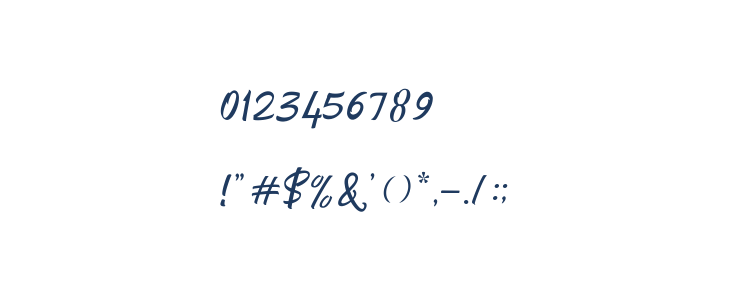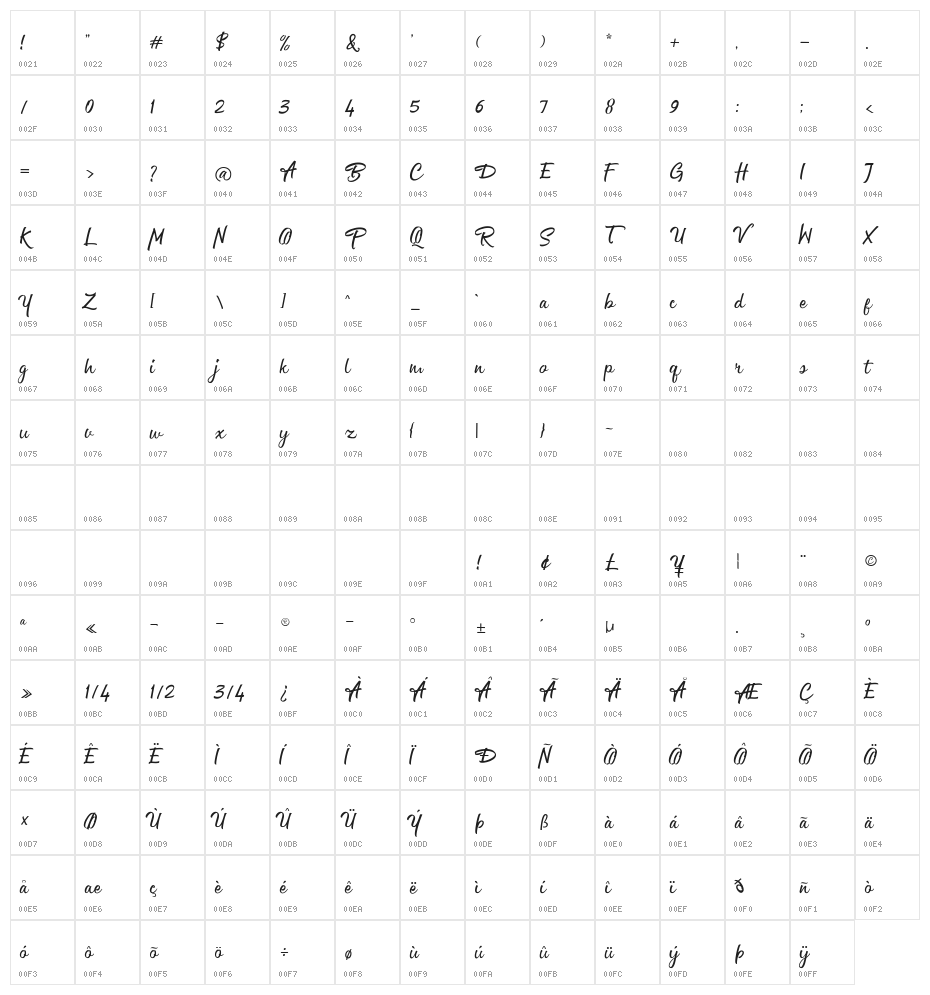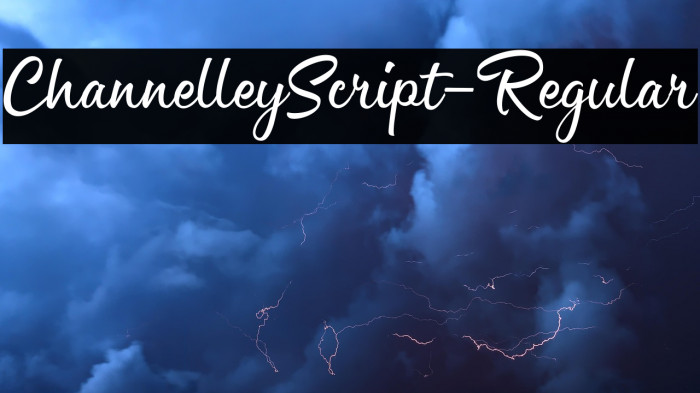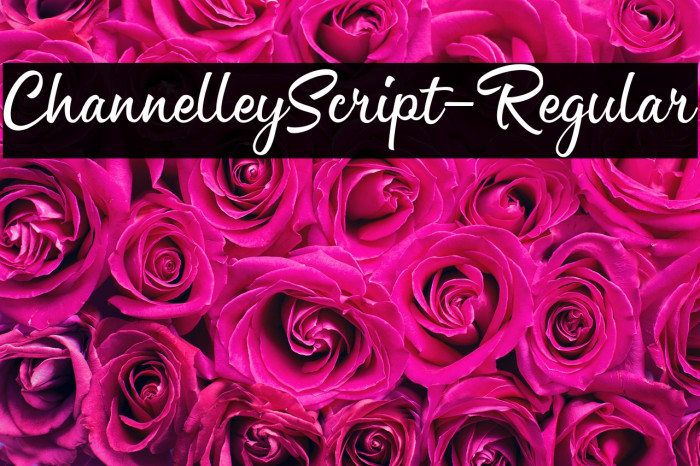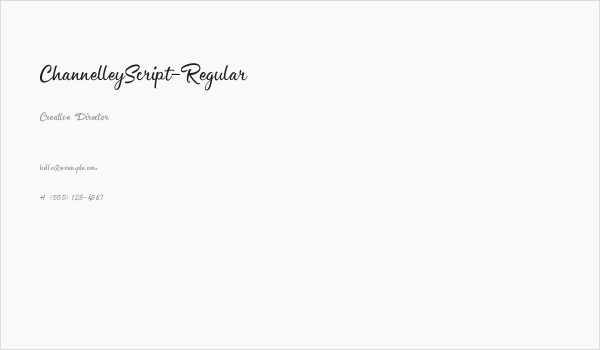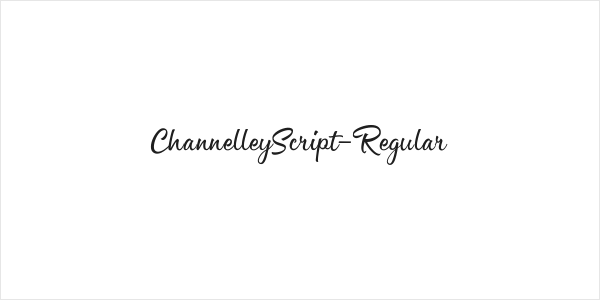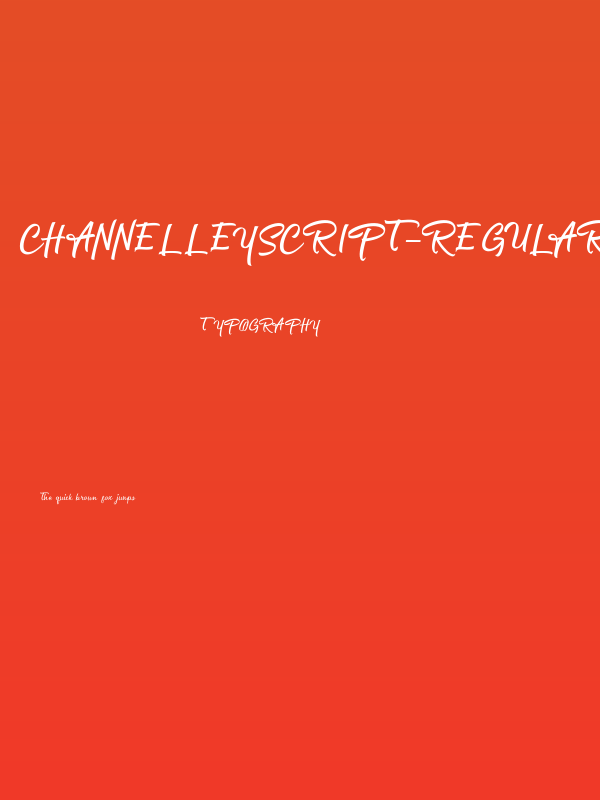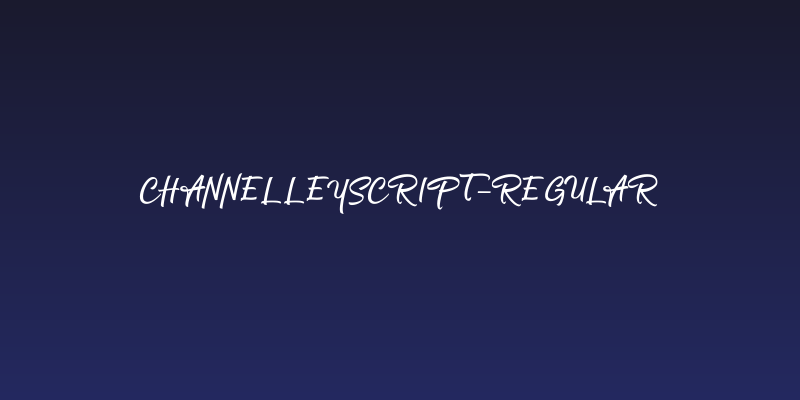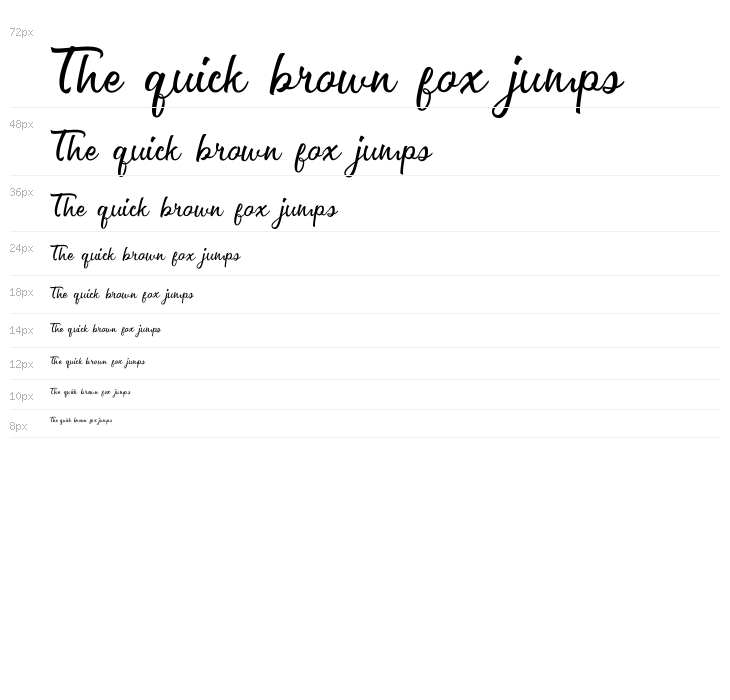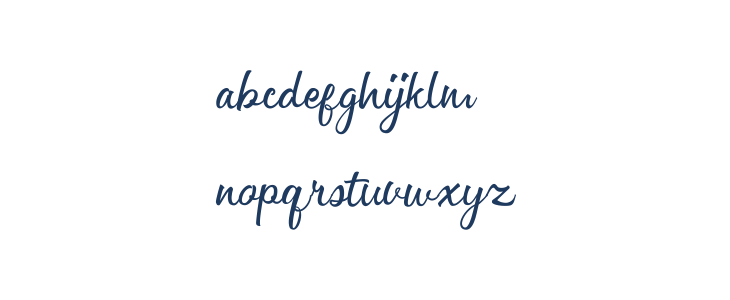
ChannelleyScript-Regular Font
ChannelleyScript-Regular Description
This elegant script font features fluid, connected strokes that mimic the natural flow of handwriting. The uppercase letters are bold and expressive, while the lowercase letters maintain a graceful and consistent rhythm. The numerals are clear and legible, complementing the overall style. Special characters are thoughtfully designed, adding to the font's versatility. The font exudes a sense of sophistication and charm, making it ideal for projects that require a personal touch.
| Overall Style | Elegant |
| Use Case | Logos, Invitations, Personal stationery |
| Proposed Projects | Ideal for wedding invitations, greeting cards, branding, and personal stationery. |